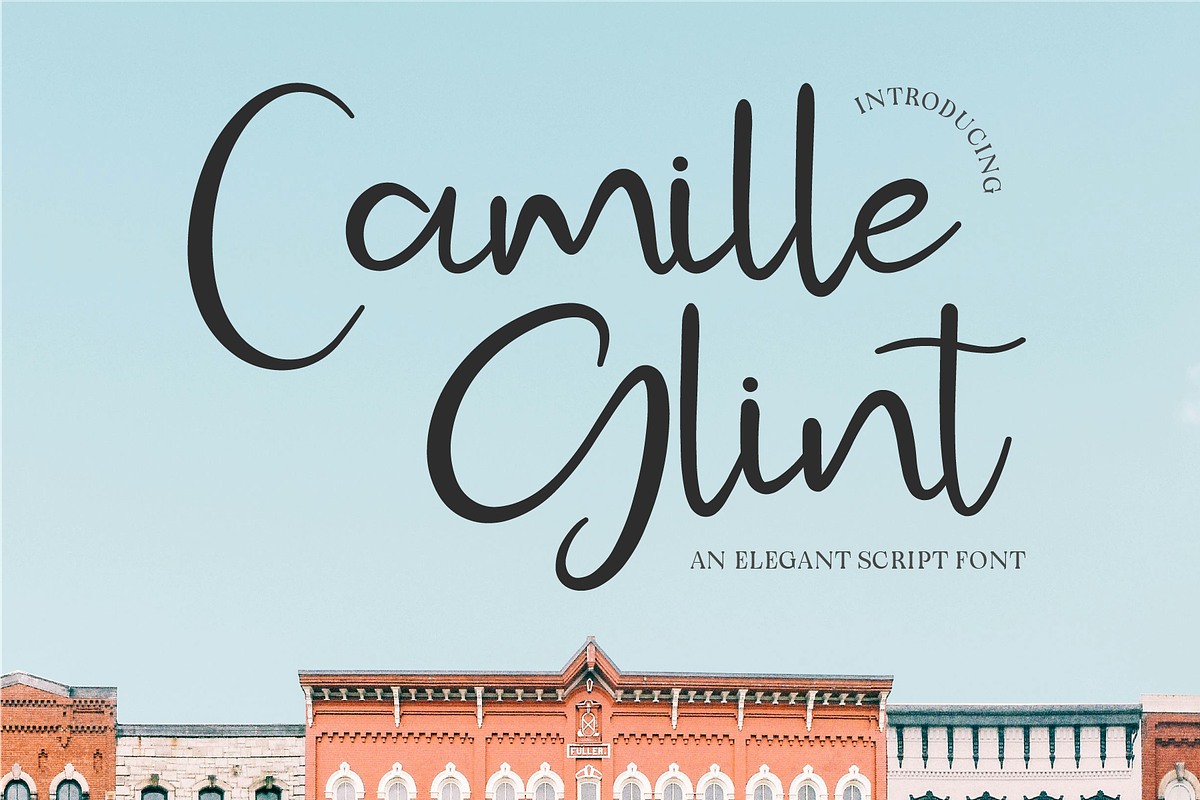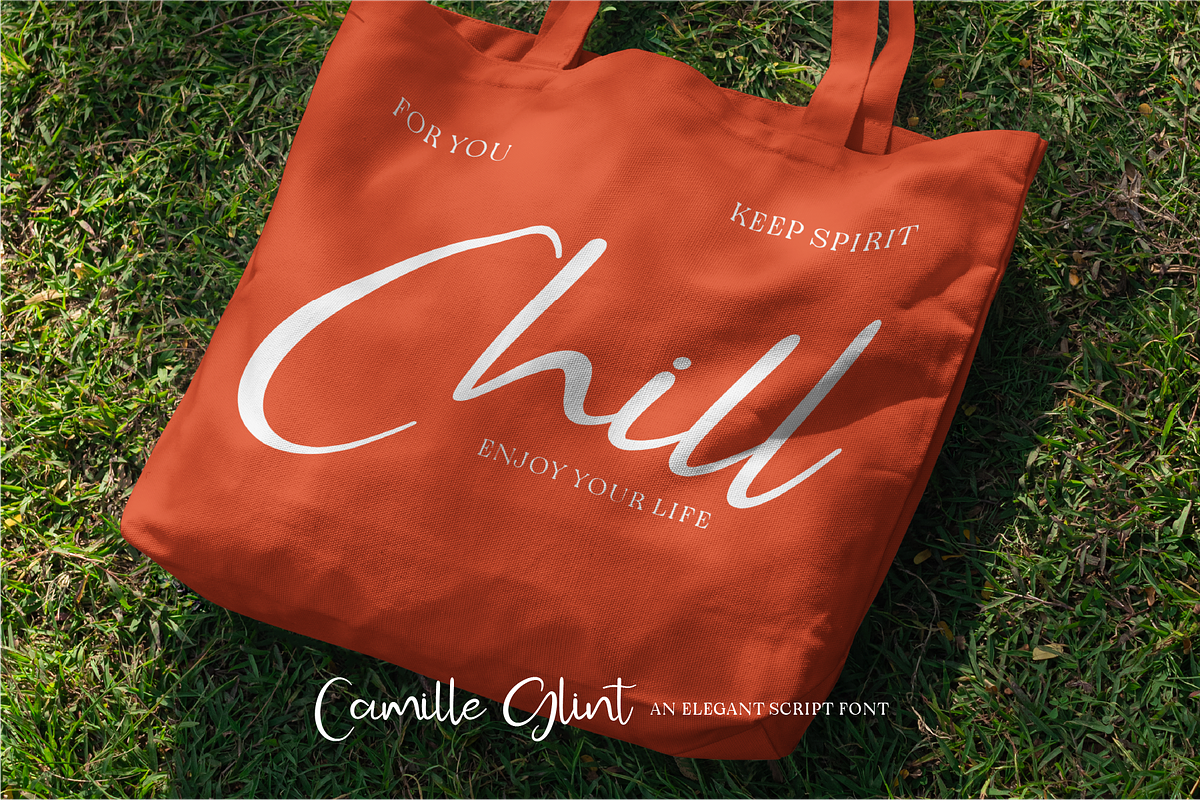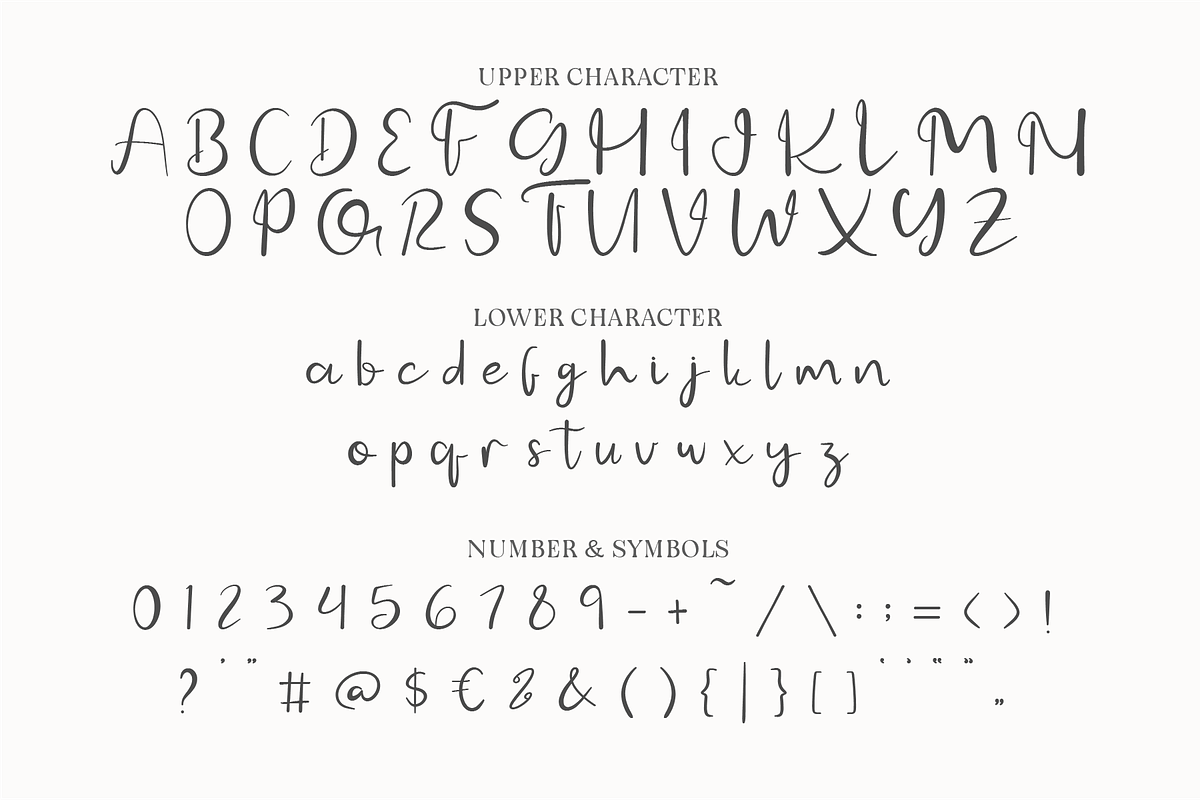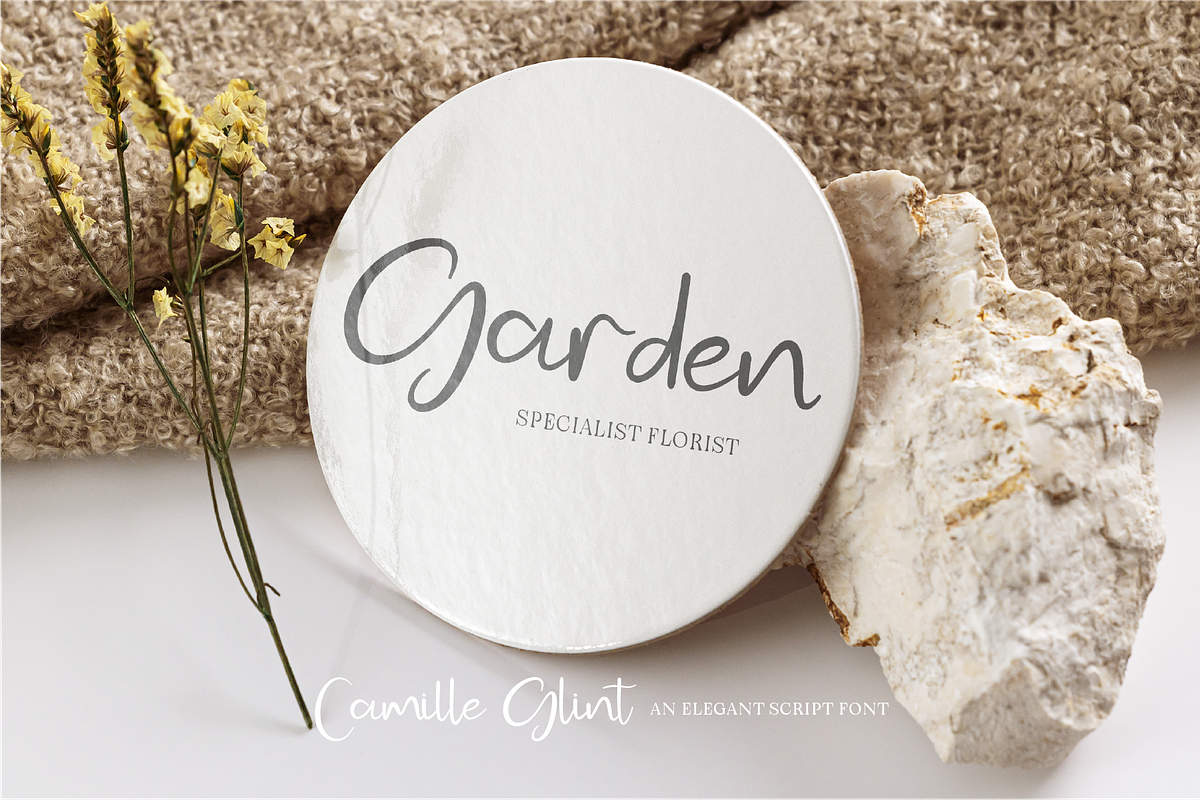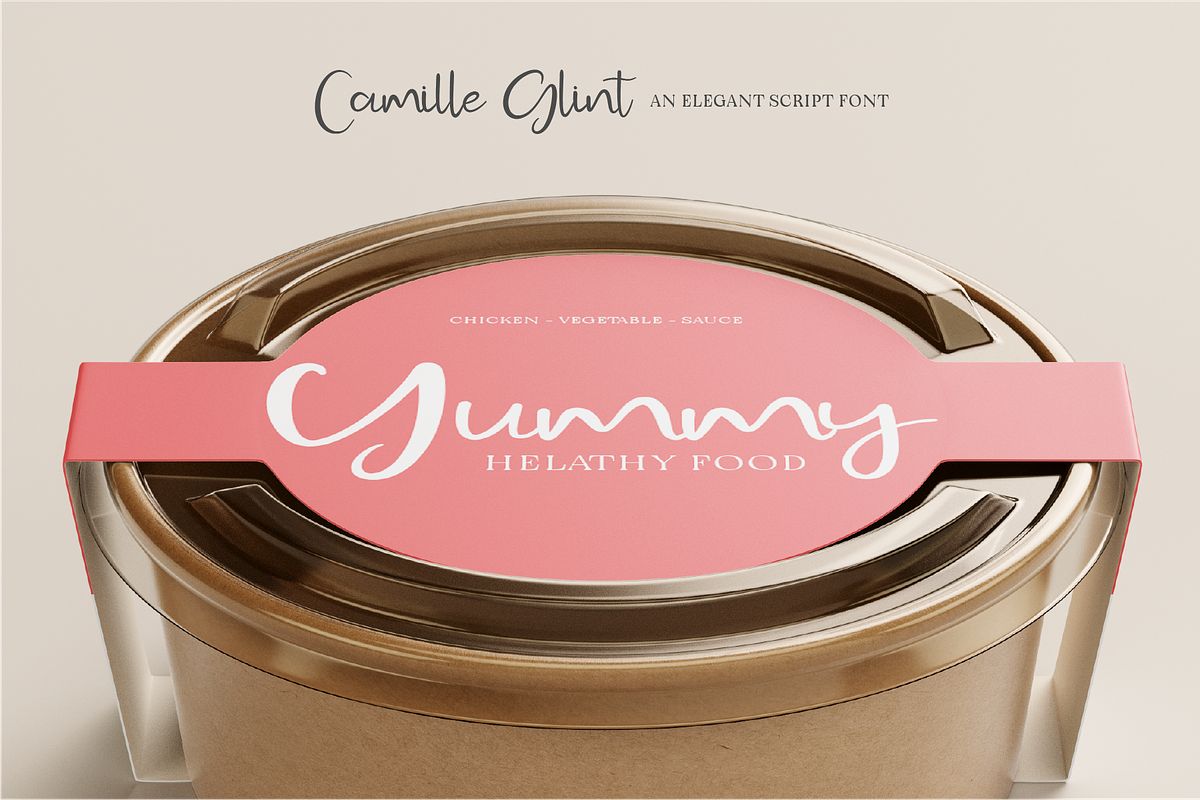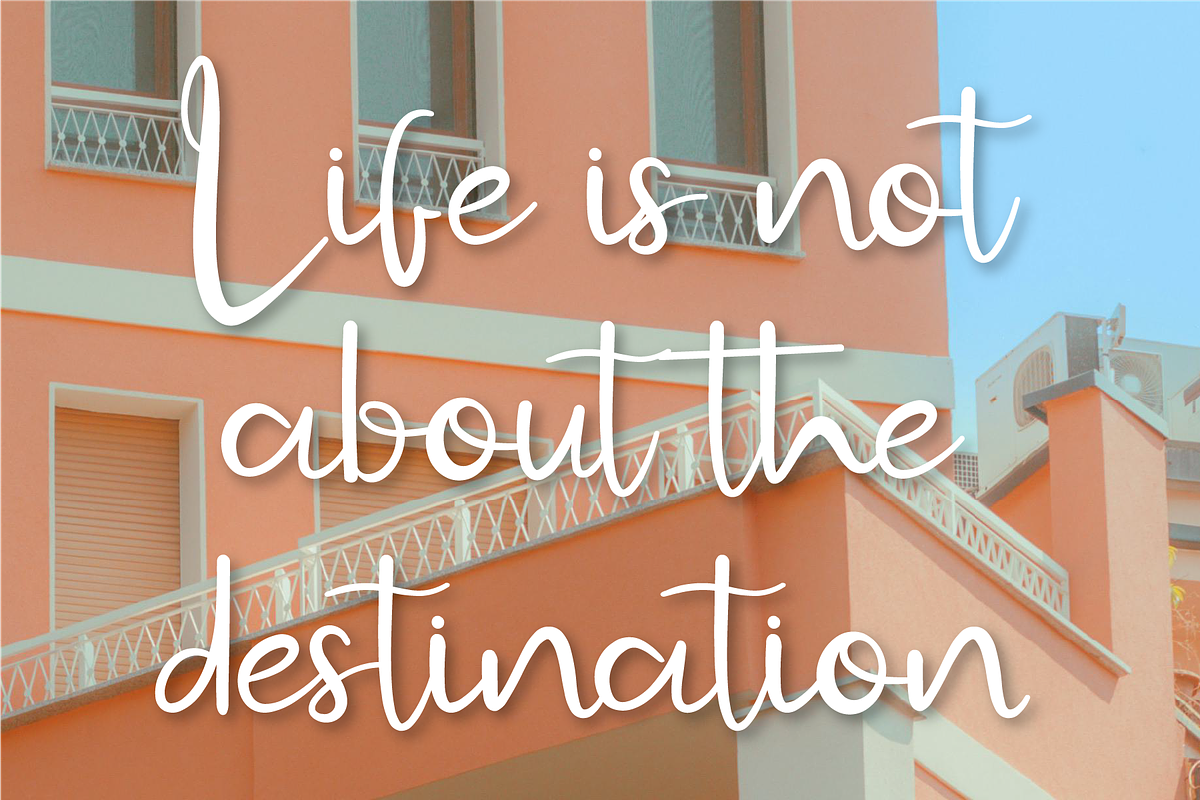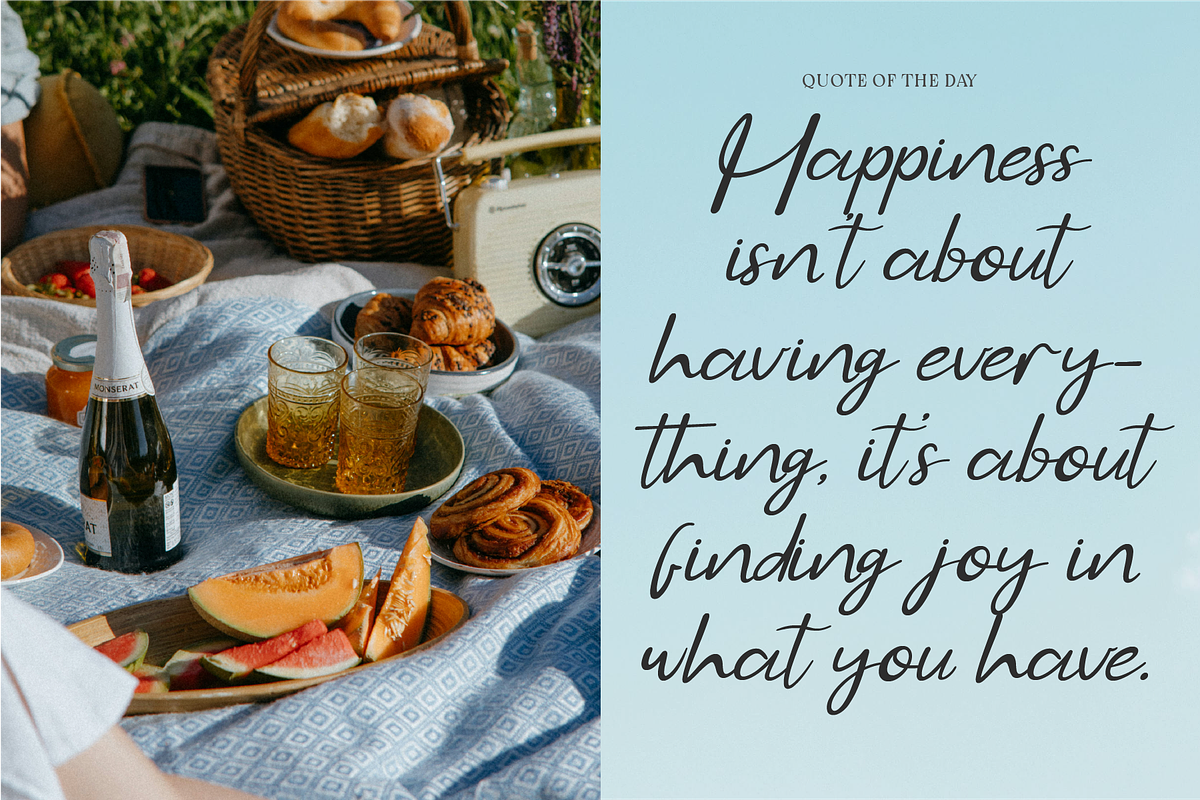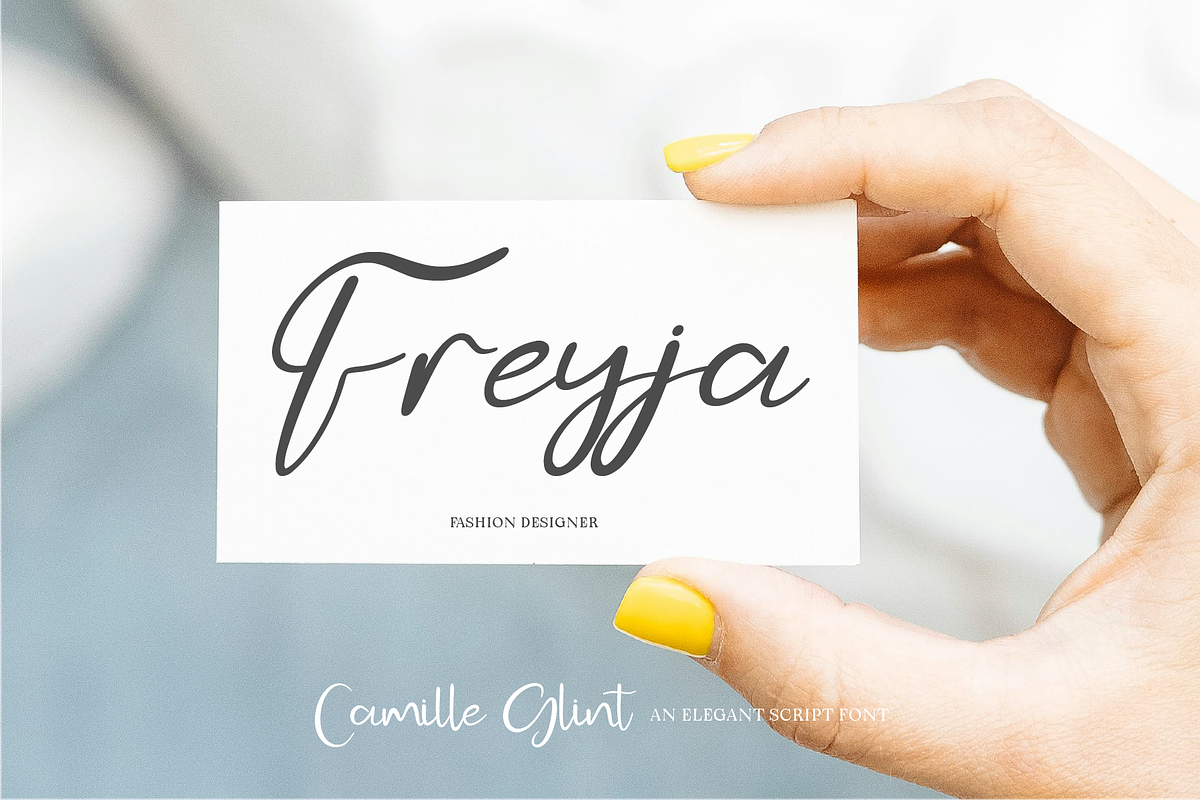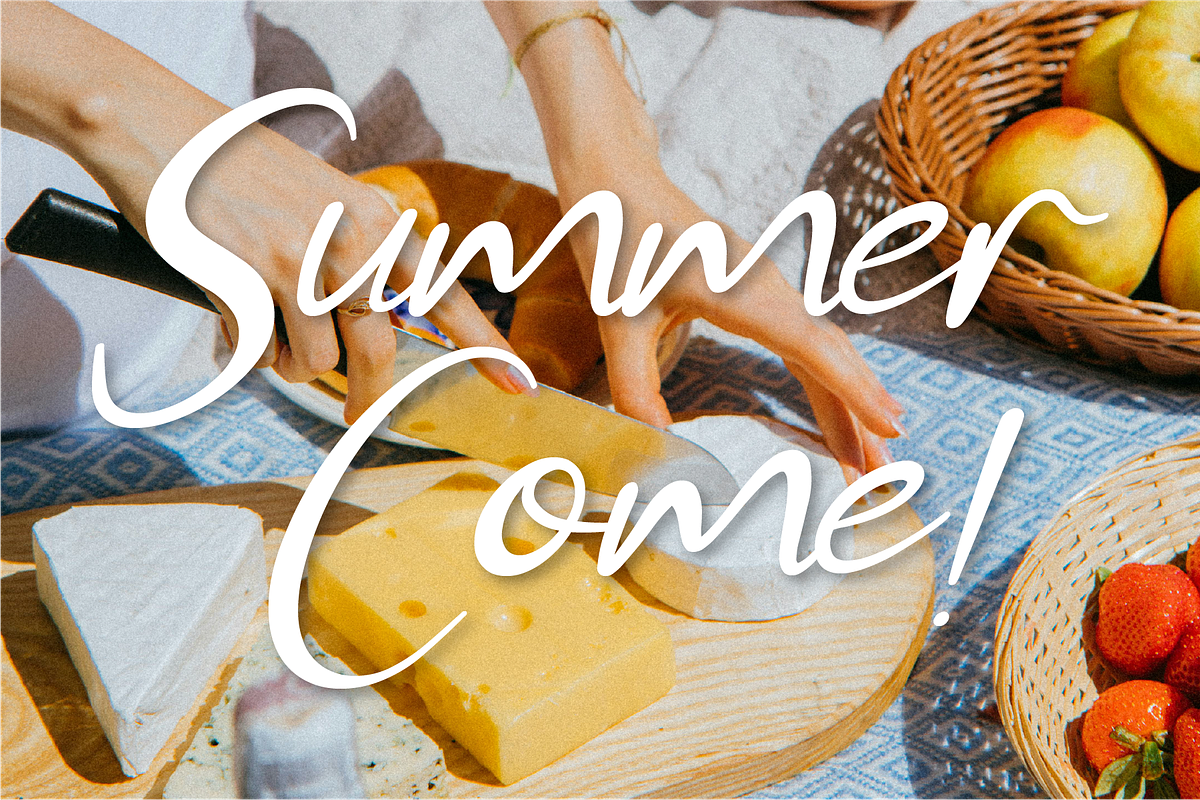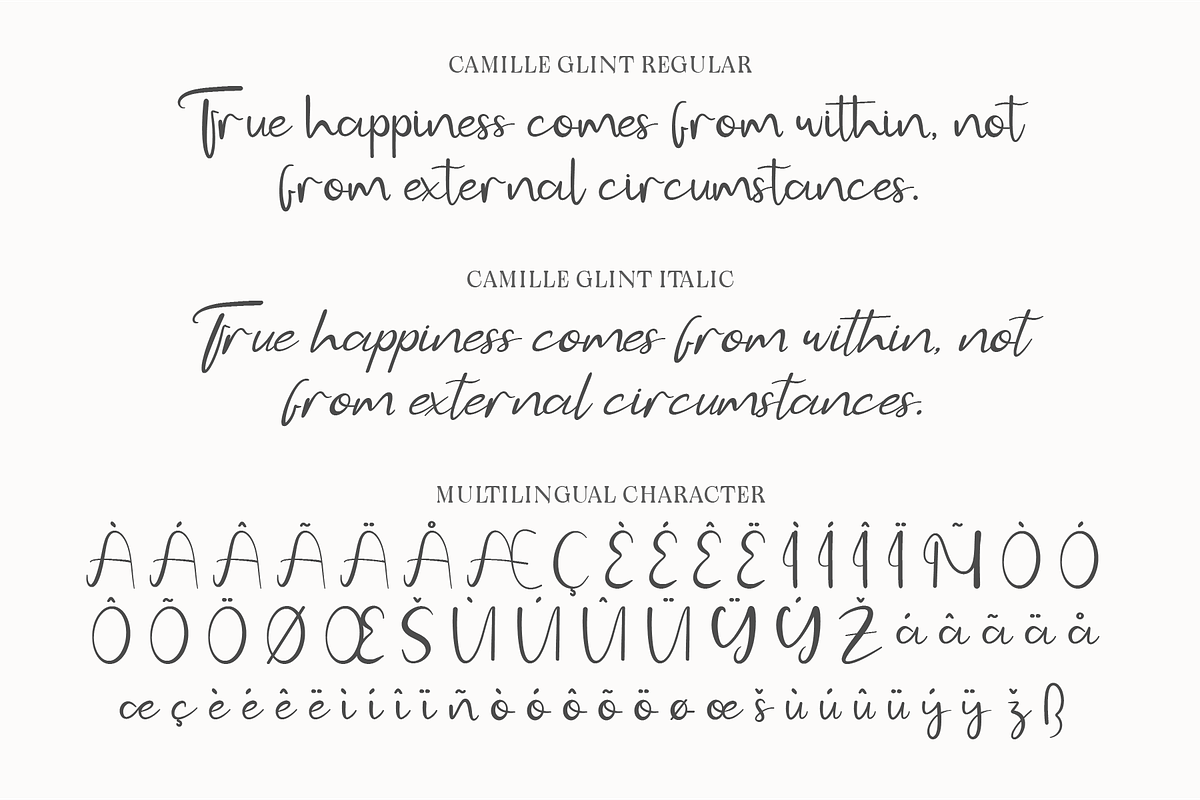
Camille Glint - Handwritten
Camille Glint is a sophisticated and stylish script font designed to add a touch of refinement to your creations. Featuring clean curves and a contemporary aesthetic, it seamlessly blends modernity with a hint of playfulness. Camille Glint is ideal for fashion branding, editorial designs, stylish logos, personal stationery, and social media graphics. Its distinctive strokes and elegant flow make it a standout choice for projects that demand both beauty and professionalism.
- Standard Character A-Z, a-z, 0-9, Punctuation & symbols
- Regular and Italic